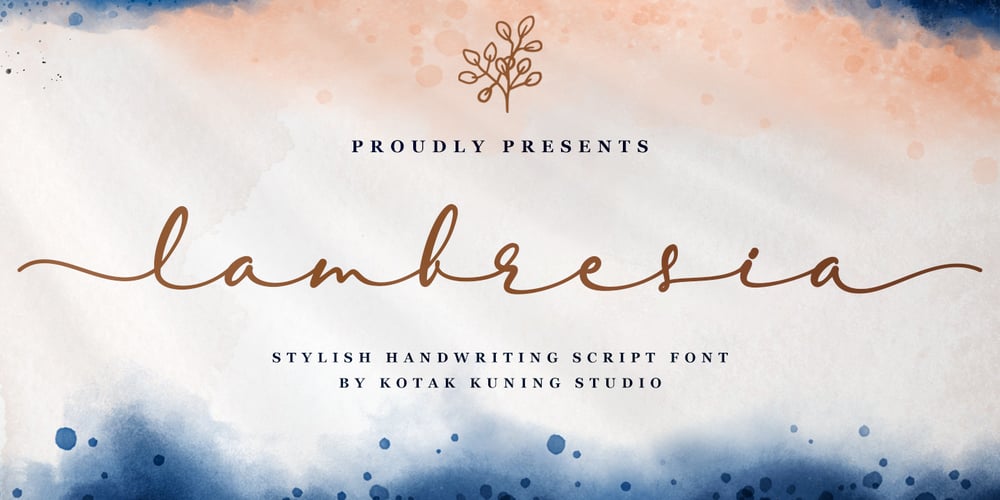
Lambresia Font Family was designed by Arif Dwi and published by Kotak Kuning Studio. Lambresia contains 1 styles and family package options. Lambresia is a handwritten script with a natural & stylish flow. This font has a multitude of natural looking ligatures in its OpenType features – making the font look as close to natural handwriting as possible. This collection of scripts is perfect for personal branding. Lambresia is perfect for many different projects such as logos & branding, invitation, stationery, wedding designs, social media posts, advertisements, product packaging, product designs, label, photography, watermark, special events or anything. I highly recommend using a program that supports OpenType features and Glyphs panels such as Adobe Illustrator, Adobe Photoshop CC, Adobe InDesign, or CorelDraw, so you can see and access all Glyph variations. This font is encoded with Unicode PUA, which allows full access to all additional characters without having special design software. Mac users can use Font Book, and Windows users can use Character Map to view and copy one of the extra characters to paste into your favorite text editor/application. We hope you enjoy the font, please feel free to comment if you have any thoughts or feedback. Or simply send me a PM or email me at kotakkuningstudio@gmail.com. Thanks for purchasing and have fun!